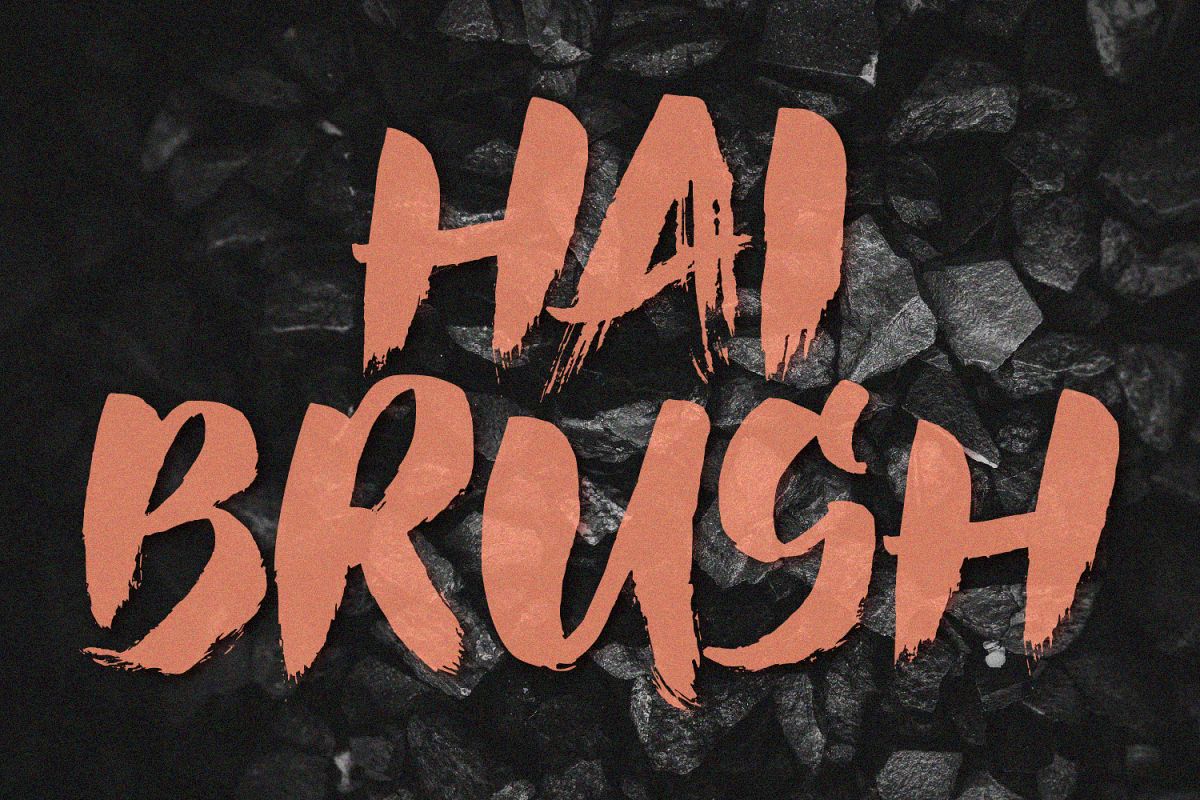
Hai Brush Font
Hai Brush Font is a font that has a Natural Brush style. Very suitable for food posters, for logos, music covers, clothes, s and many cool design projects.
1.    All Upper Case
2.    Numerals & Punctuations (OpenType Standard)
3.    Accents (Multilingual characters)
(AÀÁÂÃÄÅCÇDÐEÈÉÊËIÌÍÎÏNÑOØÒÓÔÕÖUÙÜÚÛWYÝŸ?ŸÆŒßÞ)